Transform your words into timeless old-English style text with our free Old English font generator! Perfect for creating distinguished designs that capture centuries of traditional craftsmanship. Our tool features authentic blackletter typography that commands respect and conveys strength, heritage, and permanence.
CS Bristol – Blackletter Font
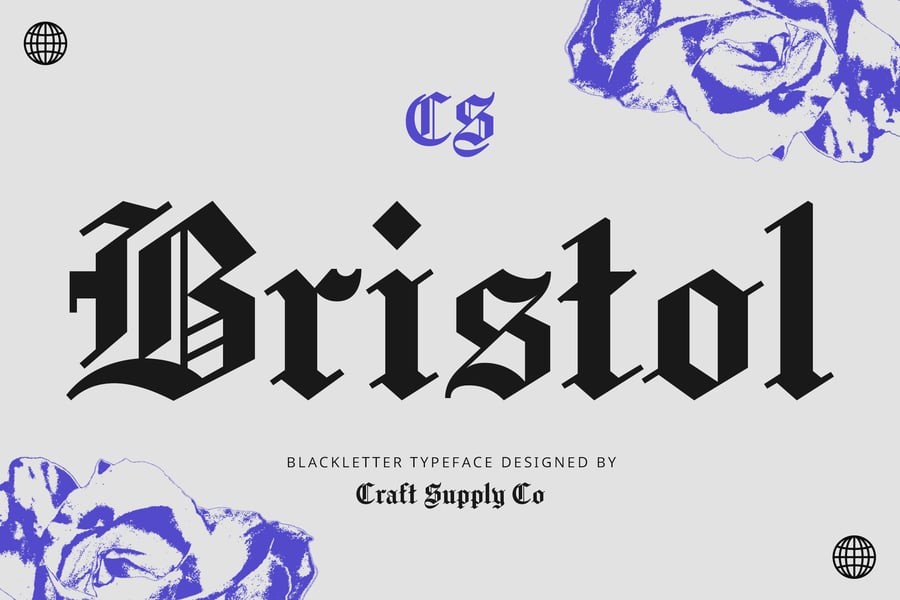
CS Bristol is a sophisticated blackletter typeface that brings medieval elegance to modern design projects. This Old English font generator style creates striking headers and branding materials with its bold, angular letterforms. Perfect for designers seeking authentic Gothic typography with contemporary refinement.
Blacksword
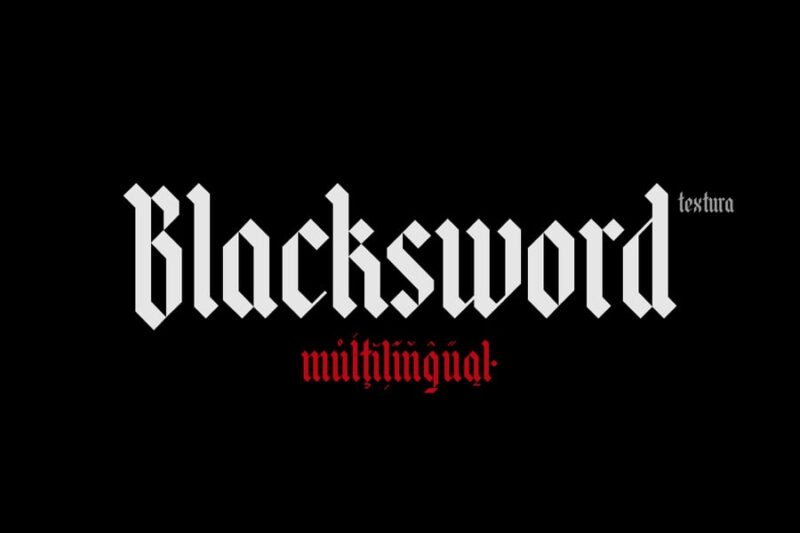
Blacksword delivers dramatic medieval character with sharp, sword-like letterforms that command attention. This powerful typeface works exceptionally well as an Old English font generator option for gaming logos, fantasy book covers, and dramatic branding. Its aggressive styling makes it ideal for projects requiring bold, authoritative typography.
The Bjorke – Handmade Fonts
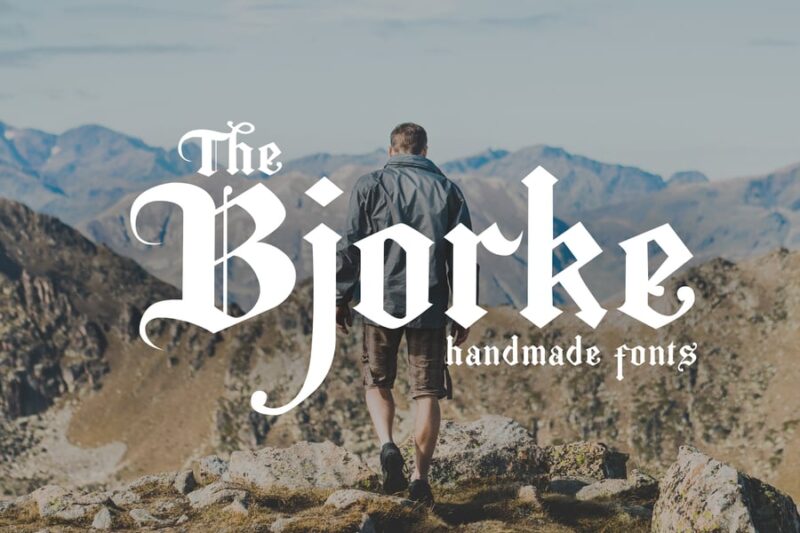
The Bjorke combines handcrafted charm with Old English font generator aesthetics, offering organic texture and authentic character. This handmade typeface features subtle imperfections that add warmth and personality to designs. Excellent for artisanal branding, craft beer labels, and projects requiring authentic, hand-lettered appeal.
Darklands – A Blackletter Font
Darklands embraces the dark, mysterious side of blackletter typography with bold, imposing letterforms. This Gothic-inspired typeface serves as an excellent Old English text generator for horror themes, metal band logos, and dramatic editorial design. Its intimidating presence makes it perfect for projects requiring an ominous, powerful aesthetic.
Claes – Old English Font
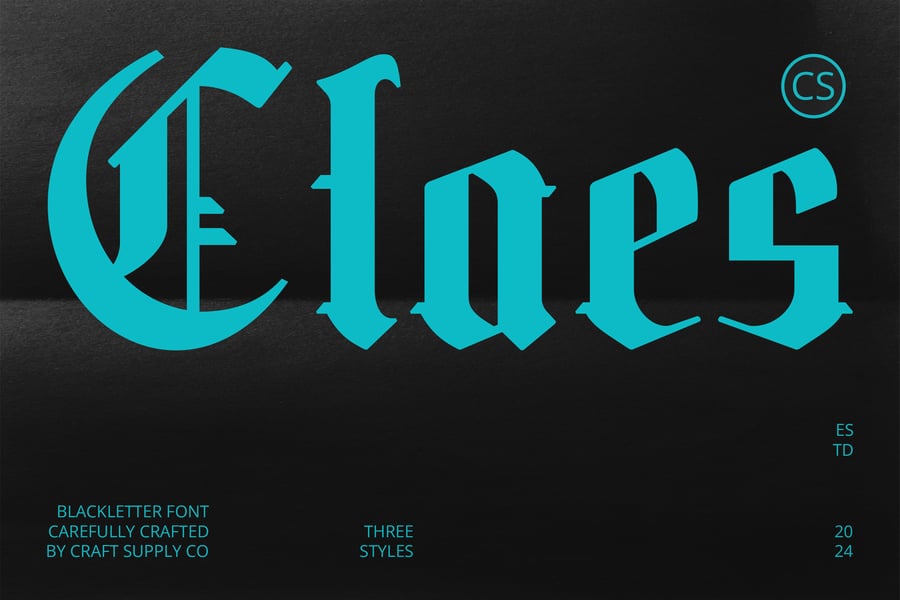
Claes represents classic Old English font generator styling with traditional blackletter characteristics and refined elegance. This versatile typeface maintains readability while preserving authentic medieval charm, making it suitable for certificates, formal invitations, and heritage branding. Its balanced design offers both historical authenticity and modern usability.
Morstan – Old English Font
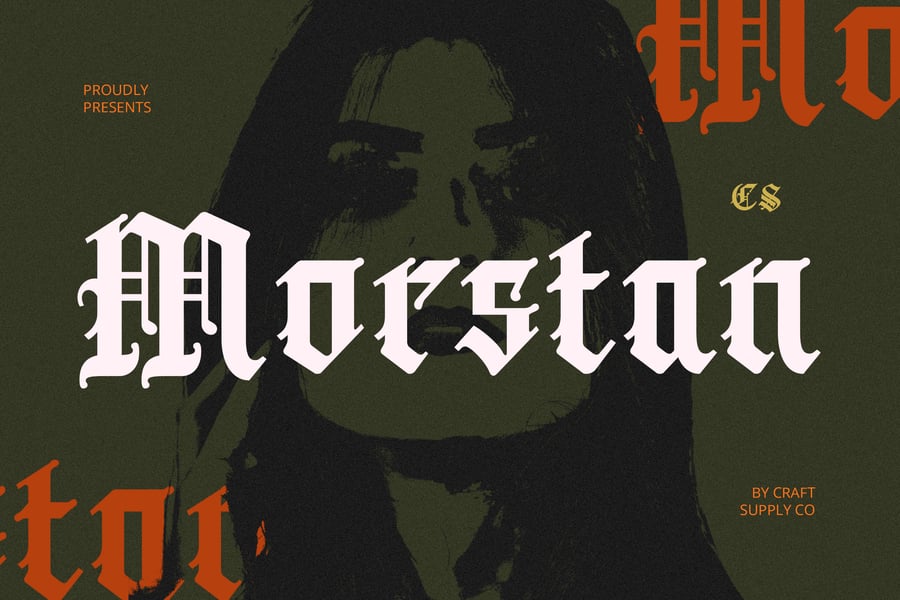
Morstan delivers premium Old English font generator quality with meticulously crafted letterforms that honor traditional blackletter principles. This distinguished typeface excels in luxury branding, formal documentation, and high-end design projects requiring sophisticated Gothic typography. Its refined character set ensures professional results across various applications.
Create Typography with Timeless Dignity
Popular Uses for Old English Typography
Looking to create something that stands the test of time? Old English fonts bring gravitas and tradition to designs meant to last. Here are some meaningful ways our users employ this historic lettering style:
- Personal tattoo design planning and visualization
- Family crest and heritage documentation
- Memorial and tribute artwork
- Formal certificates and diplomas
- Historical society materials
- Meaningful quote artwork
- Traditional barbershop and craft business branding
Why Choose Our Old English Font Generator?
- Authentic & FREE: True to traditional blackletter forms
- Live Preview: Visualize your design before committing
- Professional Quality: Suitable for serious applications
- Instant Download: High-resolution files ready for use
- Versatile Application: From digital to print to permanent art
About Old English Typography
Old English, also known as blackletter or Gothic script, represents one of the most enduring typeface traditions in Western history. Originating in medieval Europe, these letterforms were used for sacred texts, royal proclamations, and important documents. The style conveys authority, tradition, and permanence—qualities that make it particularly meaningful for tattoos, memorials, and heritage work.
A Legacy of Craftsmanship
Each stroke in Old English lettering reflects centuries of calligraphic tradition. Medieval scribes spent years perfecting these forms, creating letters that were as much art as communication. Today, Old English typography continues to represent dedication, respect for tradition, and the weight of meaningful words.
Create Something Permanent
Ready to design typography that carries real meaning? Our generator helps you explore Old English lettering for projects that matter. Whether you’re planning permanent body art, creating memorial pieces, or honoring tradition, take the time to choose words that deserve this timeless treatment.
Transform your text into Old English style today – where every letter carries the weight of history and meaning.